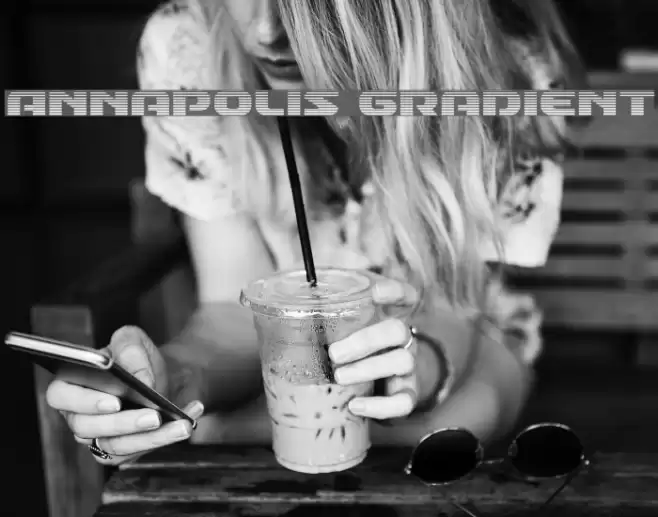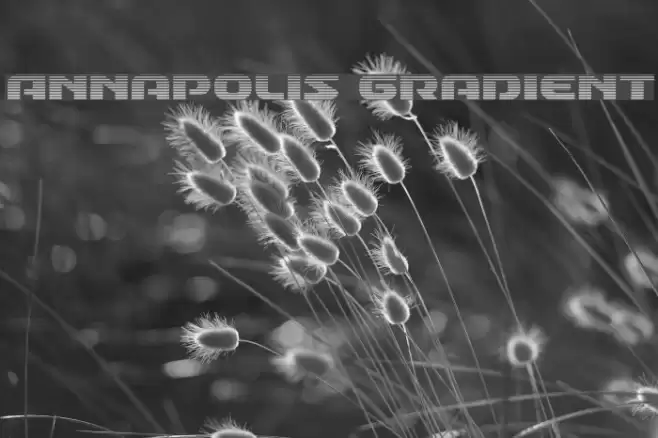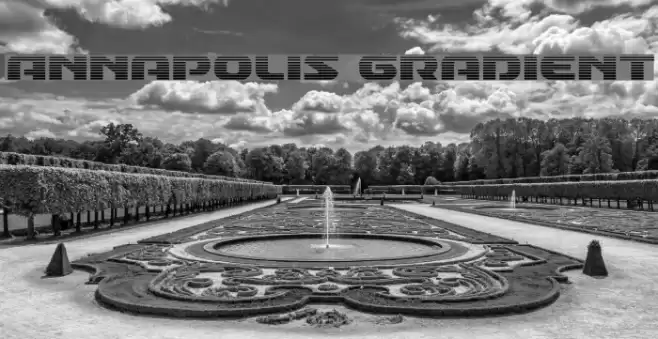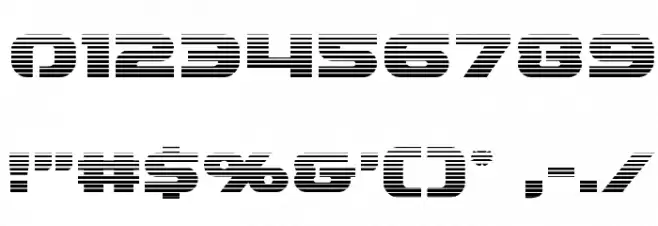
Annapolis Gradient Font
Annapolis Gradient Description
This font features a bold, futuristic design with a distinct striped pattern running horizontally across each character. The geometric shapes and sharp angles give it a modern and edgy appearance. The uppercase and lowercase letters maintain a consistent style, with the stripes creating a sense of movement and dynamism. The numerals and special characters are equally striking, making them stand out with their unique design. This font is perfect for projects that require a bold statement and a contemporary feel.
A bold, futuristic font with a unique striped pattern and geometric design from Sci-fi fonts.